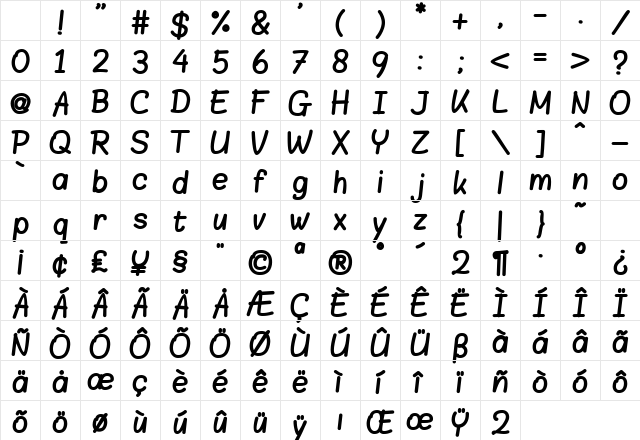
Complete Blokletters Viltstift glyph index. Displaying only characters natively supported by Blokletters Viltstift font.
Blokletters is a composed and adaptable typeface that performs quietly and consistently across a wide range of design contexts.